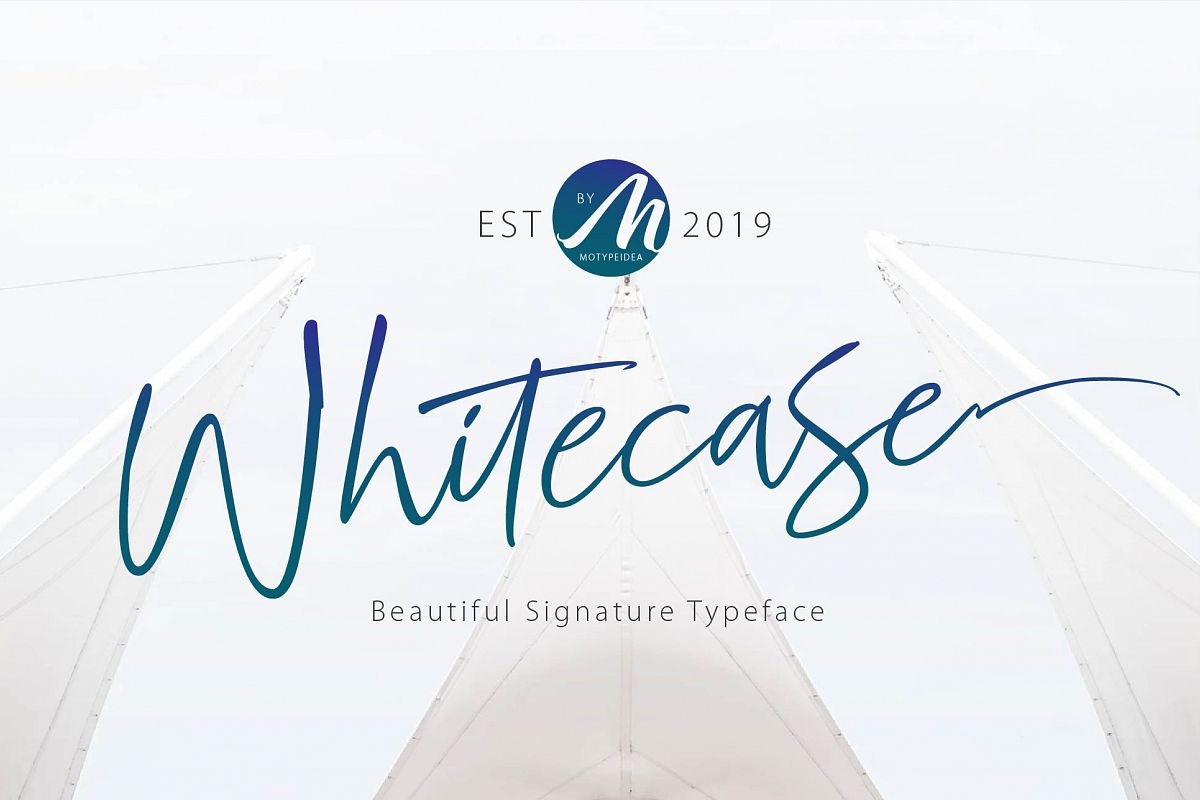
WHITECASE Script
Proudly presents our latest product WHITECASE script. I hope you are
interested in this font,The fonts are great for product logo,wedding
card logo, Banner, Graphic design, clothing brand logo, and much more.
WHITECASE script Font equipped with :
• Uppercase,
• lowercase
• lowercase Alternates
• numeral
• punctuation
• International Glyphs
• Stylishtic Alternates